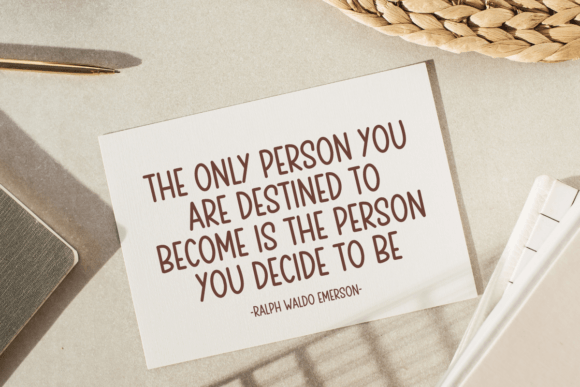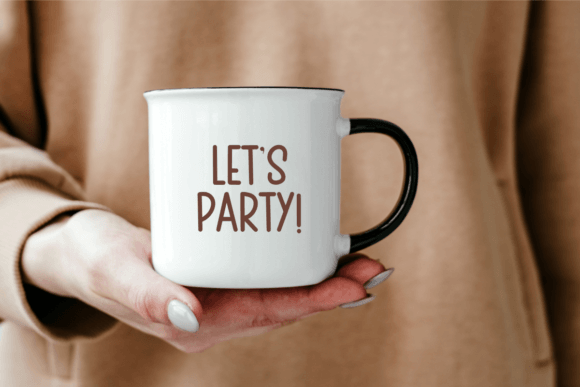
Introduction to Party Lovely Font
Remember the moment you stumbled upon the perfect font for your creative project? The one that made your design stand out and your heart skip a beat? That’s exactly what I’m about to share with you – a delightful discovery that will elevate your KDP interiors, planners, and printables to the next level.
Meet the Party Lovely Font, a charming handwritten font that exudes natural originality and adds a touch of elegance to your designs. This beautifully crafted font is a must-have for any designer looking to infuse authenticity and whimsy into their creative projects.
With the Party Lovely Font, you’ll be able to create stunning templates, stationeries, and silhouettes that will make your designs truly unforgettable. Whether you’re working on weekly planners, to-do lists, documents, or presentations, this font is sure to bring a sense of sophistication and charm to your work.
Key Features of Party Lovely Font
- High-quality design resource perfect for creative projects, offering a unique and playful touch.
- Includes a comprehensive character set, covering a wide range of languages and special characters.
- Designed with a high level of detail and precision, making it ideal for use in print and digital applications.
Honest Review: Party Lovely Font
I recently had the chance to work with the Party Lovely Font, and I must say it’s been a delightful experience. As a designer, I’m always on the lookout for high-quality design resources to elevate my creative projects.
Here are some things that work well with the Party Lovely Font:
- ✨ Its playful and whimsical style is perfect for designing party invitations, social media graphics, and other fun projects.
- ⚠️ The font family is relatively small, which can limit its use in certain design contexts.
Overall, I’m really impressed with the Party Lovely Font. It’s a fun and versatile design resource that can add a touch of personality to any creative project. While it may have a few limitations, its high quality and ease of use make it a great addition to any designer’s toolkit.
Common Use Cases for Party Lovely Font
The Party Lovely Font is commonly used for creative projects, such as wedding invitations, baby showers, and birthday parties. It is also used for design projects, such as logos, business cards, and brochures.